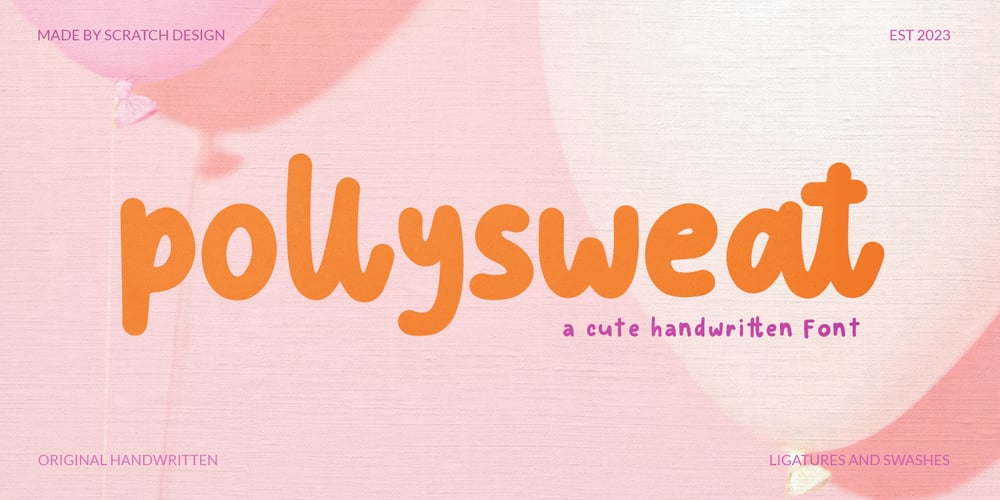
Pollysweat Font Family was designed by Gitayogi Irhandi and published by Scratch Design. Pollysweat contains 1 styles and family package options. Say Hello to Pollysweat! A fun, cute and adorable font with handwriting style. This font can be used to create fun, beautiful, and outstanding things in your design. Perfect for playful quotes, packaging, branding, website, headline, invitations, greeting cards, posters, presentations and more! Super easy to use – with a couple of extra bonuses such as multilingual, ligatures, swash, and alternates. Enjoy this cute font!